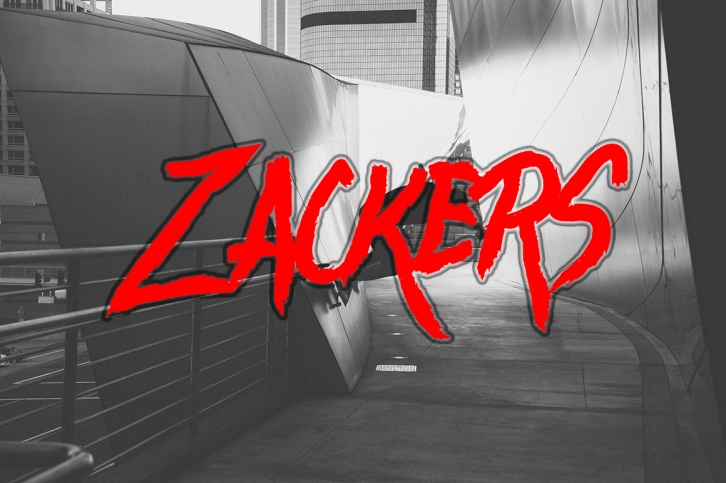
ZACKERS Brush is a beautiful font that was designed by ijemijem. It's a great choice for designers and creatives who need such a font. It was released on April 26, 2016 and the file size is 11.88 MB. ZACKERS Brush may give a more youthful, expressive and casual look to your project. It is a very beautiful, refined, elegant, and high-quality font.